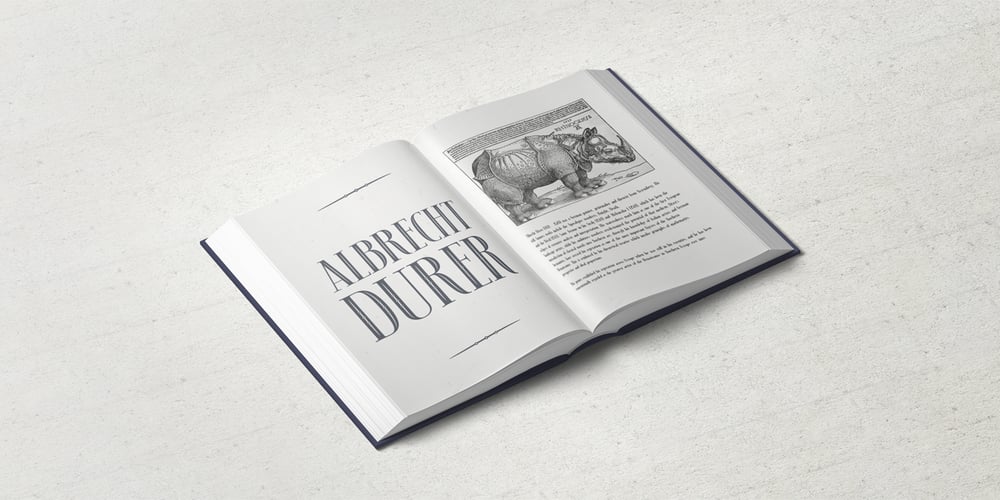
Synopsist
Synopsist font
Synopsist Font Family was designed by Dmitry Arakelov and published by Fontop. Synopsist contains 3 styles and family package options. Introducing a new serif typeface: Synopsist. Elegant, simple, classic yet distinctive. Perfect for posters, leaflets, books, magazines, presentations as well as logos and blog posts. The font also has two additional styles with special decoration of the letters (note that these styles are only for uppercase). The font includes 367 glyphs in total. Font is Latin multilingual and have uppercase letters, lowercase letters, numbers and basic punctuations.